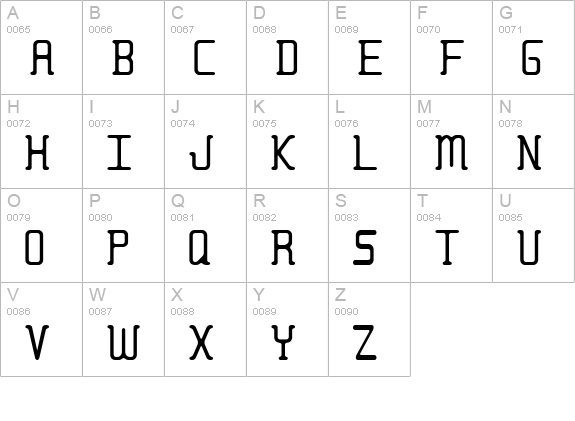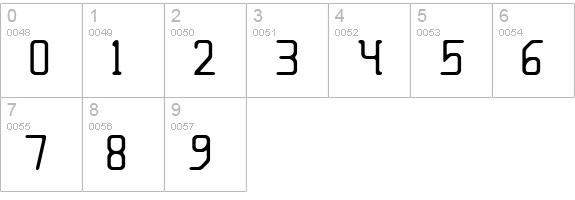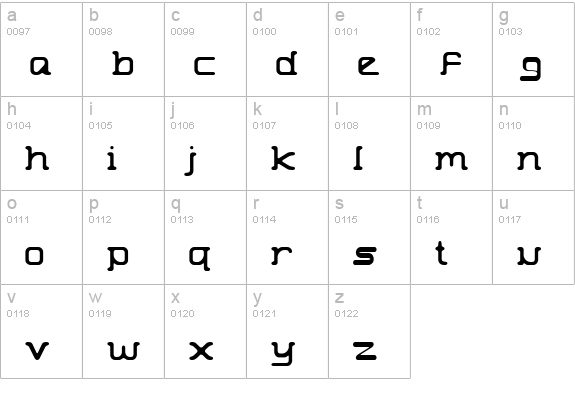
Moronic Misfire (BRK) Font Details
Moronic Misfire (BRK) font is a playful and quirky typeface that adds a touch of whimsy to any design project. With its bold and uneven letterforms, this font exudes a sense of fun and creativity. Perfect for creating eye-catching headlines, posters, and social media graphics, Moronic Misfire (BRK) will grab the attention of your audience. What's even better is that Moronic Misfire (BRK) font is available for free download at FontsMarket.com. So, whether you're a designer looking to add a unique flair to your projects or a casual user in search of a fun font for personal use, this font is the perfect choice. Download Moronic Misfire (BRK) today and let your creativity run wild!